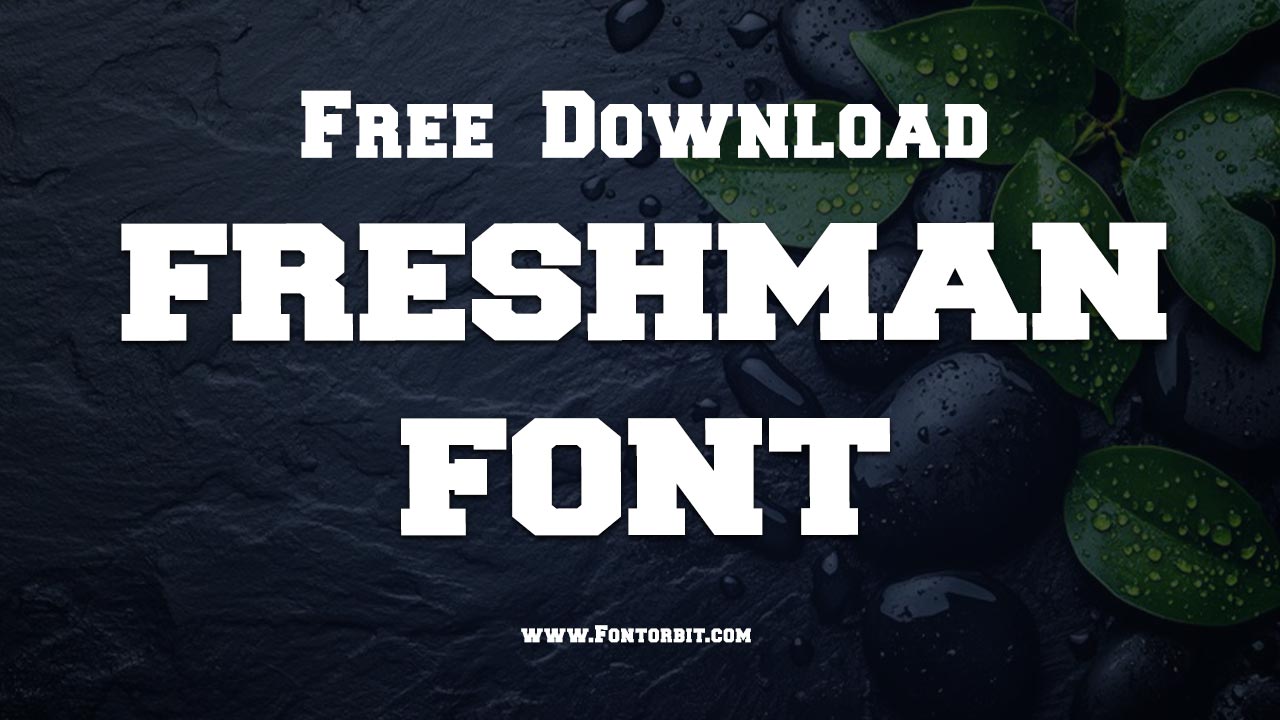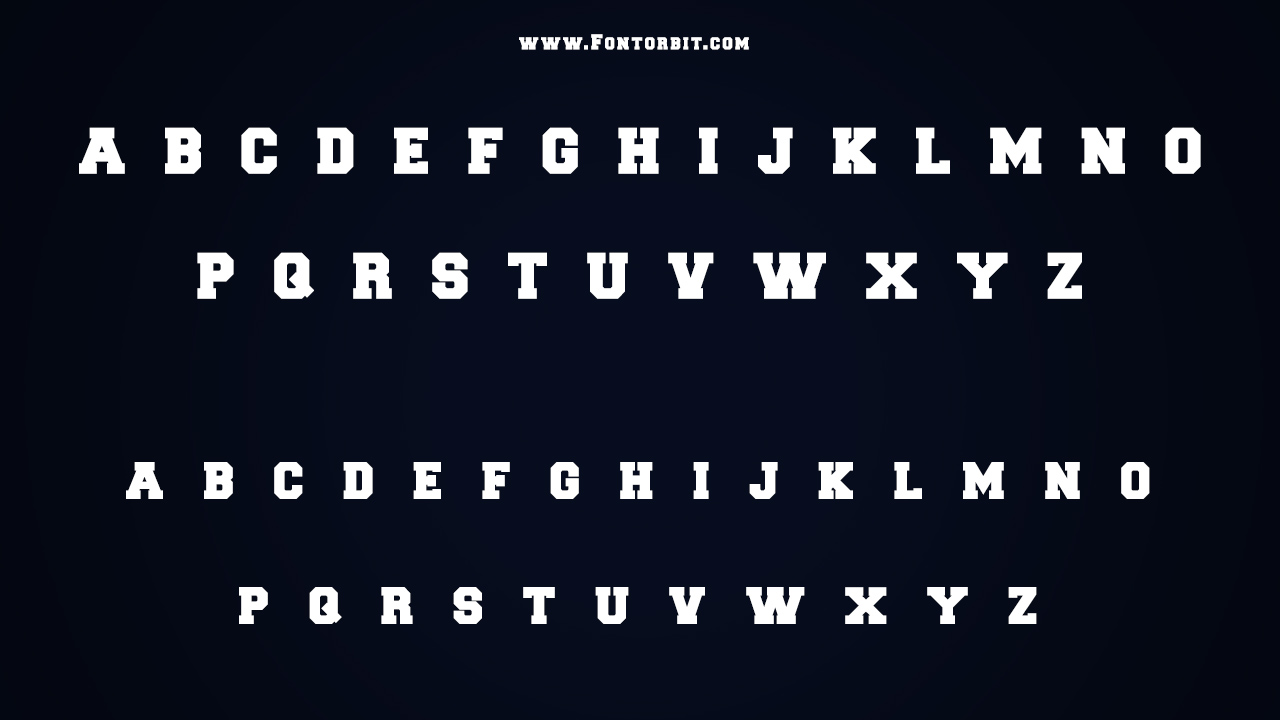
The Freshman Font, developed by William Boyd, is a classic and bold typeface, categorized under Fancy > Old School. While it captures the aesthetic of collegiate styles, its solid and straightforward design makes it highly versatile for various projects.
The Freshman Font comes in TTF format, offering a bold, collegiate look reminiscent of athletic team logos and high school letterman jackets. Its clean and simple lines make it a great choice for branding projects and creative designs seeking to capture a strong, nostalgic vibe.
The Freshman Font is perfect for designs needing a bold, impactful style. It works exceptionally well for sports-related projects, branding, and event promotion. Its clean, old-school aesthetic can make any design feel both timeless and dynamic. Some key applications include:
- flyer
- logo branding
- products packaging
- signage
- stationery
The Freshman Font by William Boyd is ideal for projects that need a bold, nostalgic, and old-school vibe. Free to download and use, this font is versatile enough for various creative applications, from team logos to packaging design.
Its clean, straightforward design makes it stand out while being easy to read, making it perfect for both professional and personal projects.
1.How To Identify Freshman Font From Similar Fonts?
Freshman Font is characterized by its bold, blocky letters and clean, structured design. It is most commonly used in collegiate or sports-themed projects, differentiating itself from more decorative or ornate fonts.
2.What Is The Collegiate Font Style?
Collegiate fonts are designed to evoke the aesthetics of university sports teams and letterman jackets. They usually feature bold, blocky, and easy-to-read characters, and they are often used for branding or team logos.
3.What Are The Freshman Font History And Origins?
Freshman Font, created by William Boyd, was inspired by classic varsity and college-themed designs. It has become a go-to font for sports branding, posters, and product packaging.